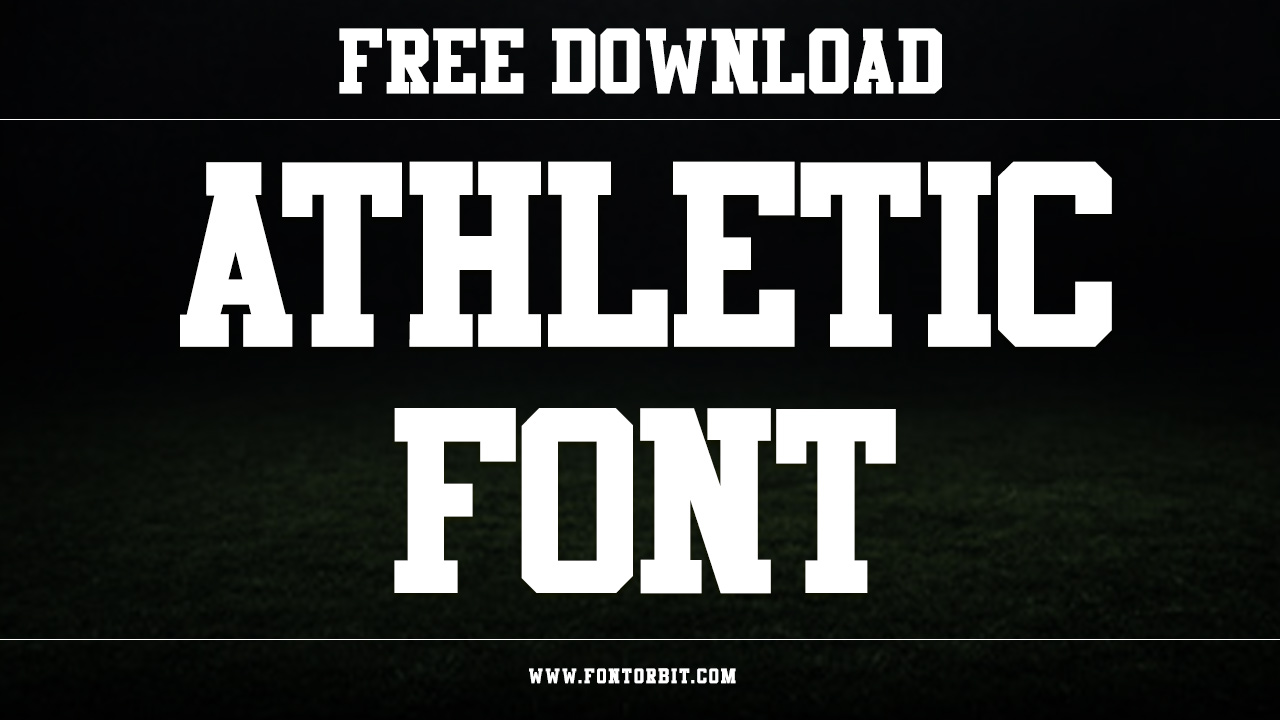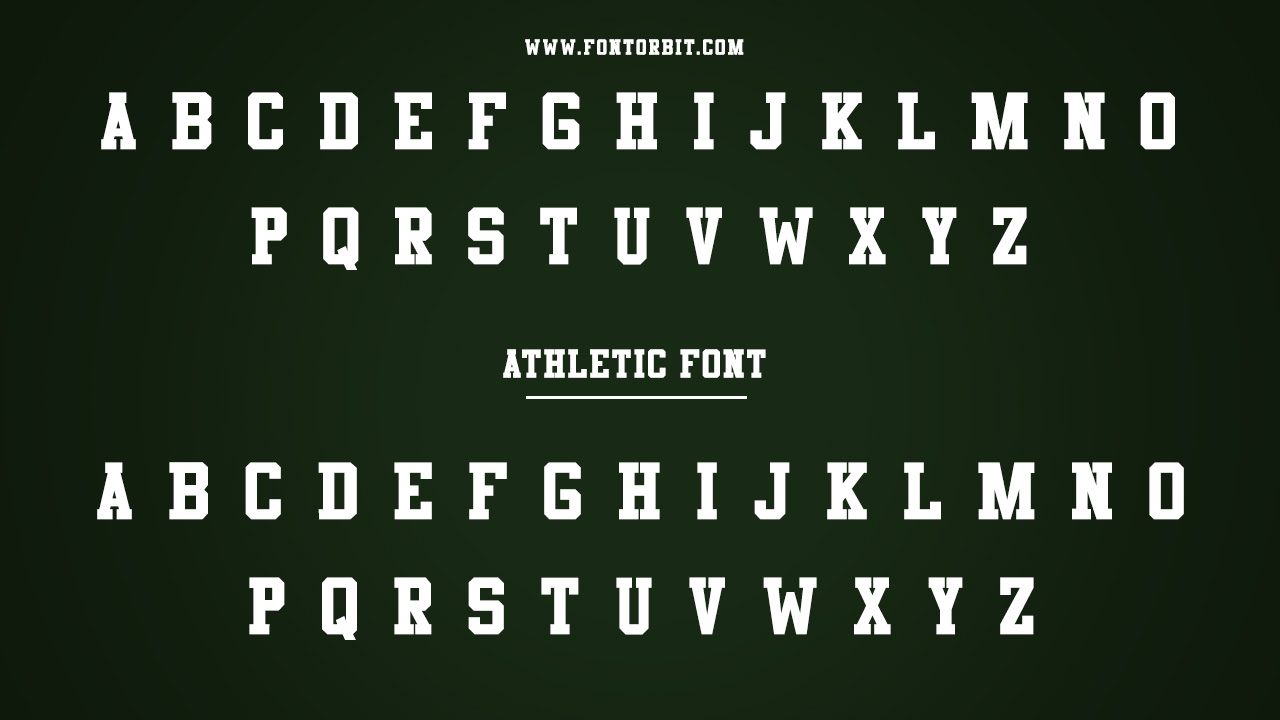
The Athletic font, created by Edward A. Leach, stands out for its bold and dynamic aesthetic, making it a top choice in sports branding and design. This typeface’s strong, clean lines and retro vibe make it ideal for team logos, jersey designs, and sports apparel. Whether you’re crafting a varsity team logo, designing sports jerseys, or working on promotional sports advertisements, the Athletic font delivers a level of strength and impact that is hard to match.
The Athletic font is one of the best sports fonts available. Let’s explore its use in various designs and how it pairs well with other fonts to create a memorable brand identity for any team.
Athletic Font Family & Alternatives
The Athletic font family is designed to provide a cohesive, powerful look. Here’s a look at the main font and a few similar fonts that can be used for complementary design elements:
- Athletic Regular
- Athletic Bold
- Varsity (similar alternative)
- College (similar alternative)
- Pro Racing (alternative for a sporty vibe)
| Font Family | Style | Use Case |
| Athletic | Bold, classic | Team logos, jerseys, banners, sports branding |
| Varsity | Collegiate, bold | Sports teams, uniforms, event marketing |
| College | Retro, clean | University branding, apparel, sports events |
| Pro Racing | Sleek, sporty | Motorsports, advertisements, team logos |
The Power Of Typography In Sports Branding
Typography plays a crucial role in sports branding. A well-chosen font can elevate your team logo or sports jersey design, making it more recognizable and memorable. The Athletic font is particularly well-suited for sports because of its strong, bold presence. It’s perfect for capturing the energy and spirit of athletes and their teams.
Why Choose The Athletic Font?
Here are some key reasons to use the Athletic font for your sports design needs:
- Bold Lettering: The Athletic font has a distinctive, bold design that captures attention and projects strength.
- Versatility: It can be used in various applications, from sports jerseys to advertisements and team logos.
- Classic Design: Its retro feel ties into the rich history of sports branding, giving your designs a timeless appeal.
The Role Of Athletic Fonts In Sports Apparel & Merchandise
When designing sports apparel, select a font that reflects the strength and unity of a team. Athletic fonts like this bring the perfect balance of power and elegance to your jersey design or sports uniform. These bold fonts are also ideal for sports team logos, banners, and other marketing materials that need to stand out.
Here’s why Athletic fonts are often used for merchandise and uniforms:
- Attention-grabbing: Bold fonts make a strong statement, perfect for team jerseys or promotional sports merchandise.
- Brand Identity: The right typeface can help define the personality of the team brand or sports apparel line, ensuring it’s memorable and cohesive.
Ideal Uses For the Athletic Font
The Athletic font is versatile enough to be used in multiple design scenarios, including but not limited to:
- Sports Team Logos: A perfect match for showcasing team spirit and power.
- Jersey Designs: Its bold appearance enhances sports apparel by making team names, numbers, and logos pop.
- Advertisements: Whether online or offline, this font grabs attention in promotional banners, website headers, and sports marketing materials.
Pairing The Athletic Font With Other Fonts
While the Athletic font is ideal on its own, it can also be paired with other fonts for a well-rounded, professional look. For example:
- Pair it with sans-serif fonts like Helvetica or Roboto to give your design a modern, clean touch.
- For sports banners or sports apparel, try pairing it with a slab serif font for a strong, grounded feel.
Why It Works For Jerseys And Merchandise
The Athletic font works exceptionally well for jersey design and uniforms because of its bold presence. Whether you’re creating sports apparel for baseball, basketball, or any other team sport, this font brings strength and clarity to the design. It also translates well into sports branding for various promotional materials like team banners and online advertisements.
The Athletic font is a fantastic choice for anyone involved in sports branding, whether you’re designing sports jerseys, team logos, or advertisements. Its bold, classic design captures the spirit of athletics while offering versatility and adaptability across various design projects. Combining this font with complementary typefaces, you can create stunning, memorable branding for your sports apparel or team uniforms.
1.What Makes The Athletic Font Stand Out?
Its bold, clean lines project strength and energy, making it perfect for sports branding.
4.Where Can I Use The Athletic Font?
The Athletic font is great for sports team logos, jersey designs, advertisements, and sports apparel.
6.Is The Athletic Font Suitable For Websites?
It works well for sports-related websites, especially for headings, banners, and promotional materials.